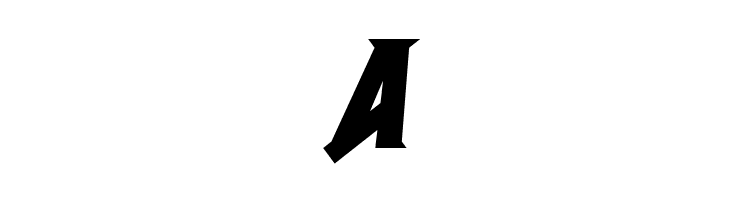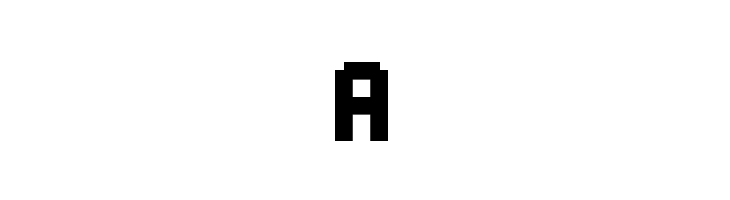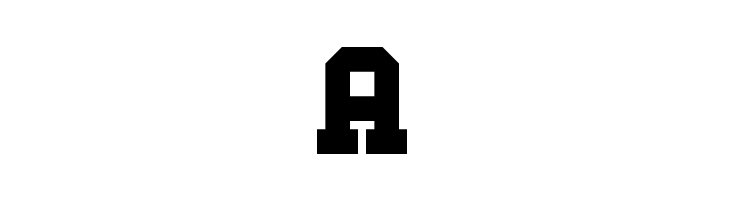
A decorative, cursive script font with a flowing, handwritten style.
An elegant script font with flowing, interconnected letters and ornate uppercase characters.
A bold, monospaced font with a clean and modern design, perfect for coding.
A modern, monospaced font with bold italic styling, ideal for coding and technical use.
A modern, monospaced italic font with medium contrast and normal spacing.
A clean, monospaced font ideal for coding and technical documentation.
A bold, monospaced font ideal for coding and technical documents.
A bold, italic, monospaced font with a modern and dynamic style.
A modern, monospaced italic font with medium contrast and balanced spacing.
A clean, modern monospaced font ideal for coding and technical use.
A bold, monospaced font with a clean and modern design, perfect for coding.
A bold, italic, monospaced font with a modern and clean design.
A clean, monospaced italic font with medium contrast and modern appeal.
A clean, modern monospaced font ideal for coding and technical documentation.
A bold, geometric font with a strong, angular design and monospaced appearance.
A bold, high-contrast serif font with geometric influences and sharp serifs.
Expressive, bold handwritten font with energetic strokes.
A bold, angular, italic font with a dynamic and aggressive style.
A bold, angular font with a dynamic, forward-leaning style.
A bold, playful script font with dynamic curves and a lively style.
A bold, geometric font with strong outlines and a modern, industrial style.
A modern sans-serif font with clean lines and excellent readability.
A bold, modern typeface with strong geometric shapes and uniform strokes.
A bold, italicized font with thick strokes and a modern, dynamic style.
A modern sans-serif font with geometric shapes and balanced proportions.
A sleek, modern sans-serif typeface with a slight italic slant and medium weight.